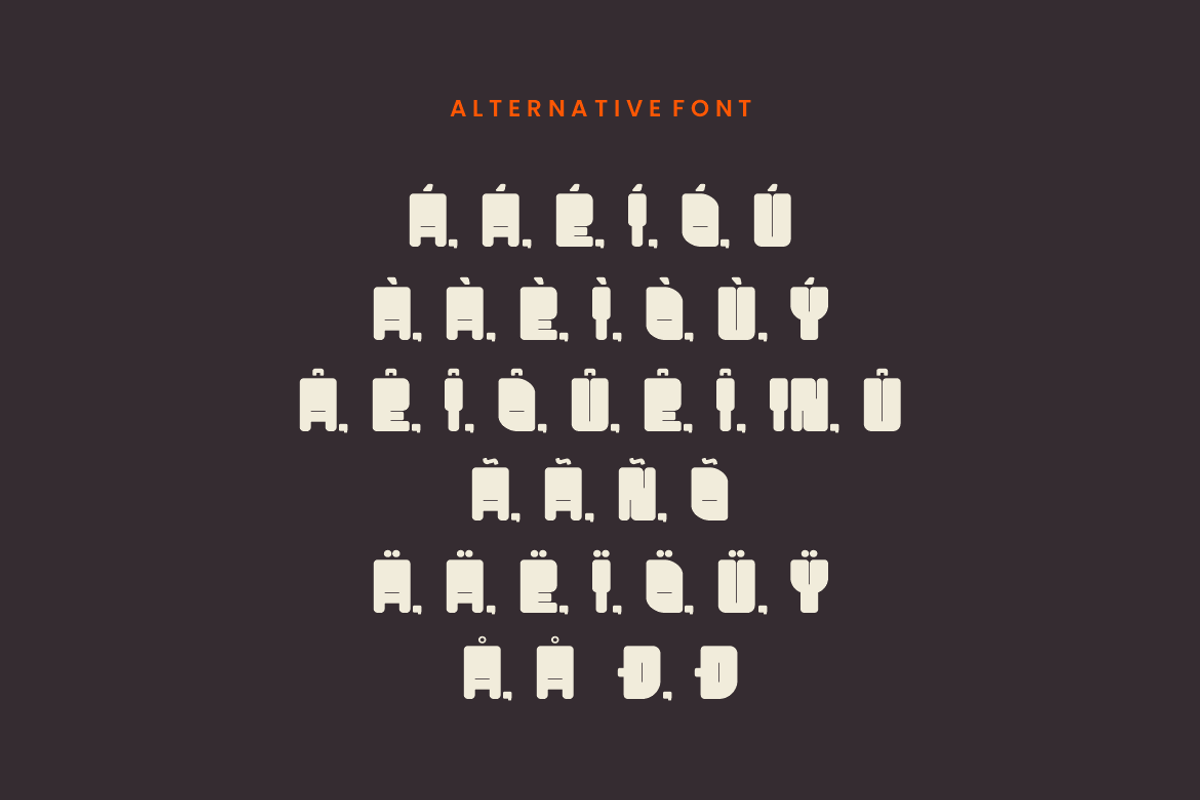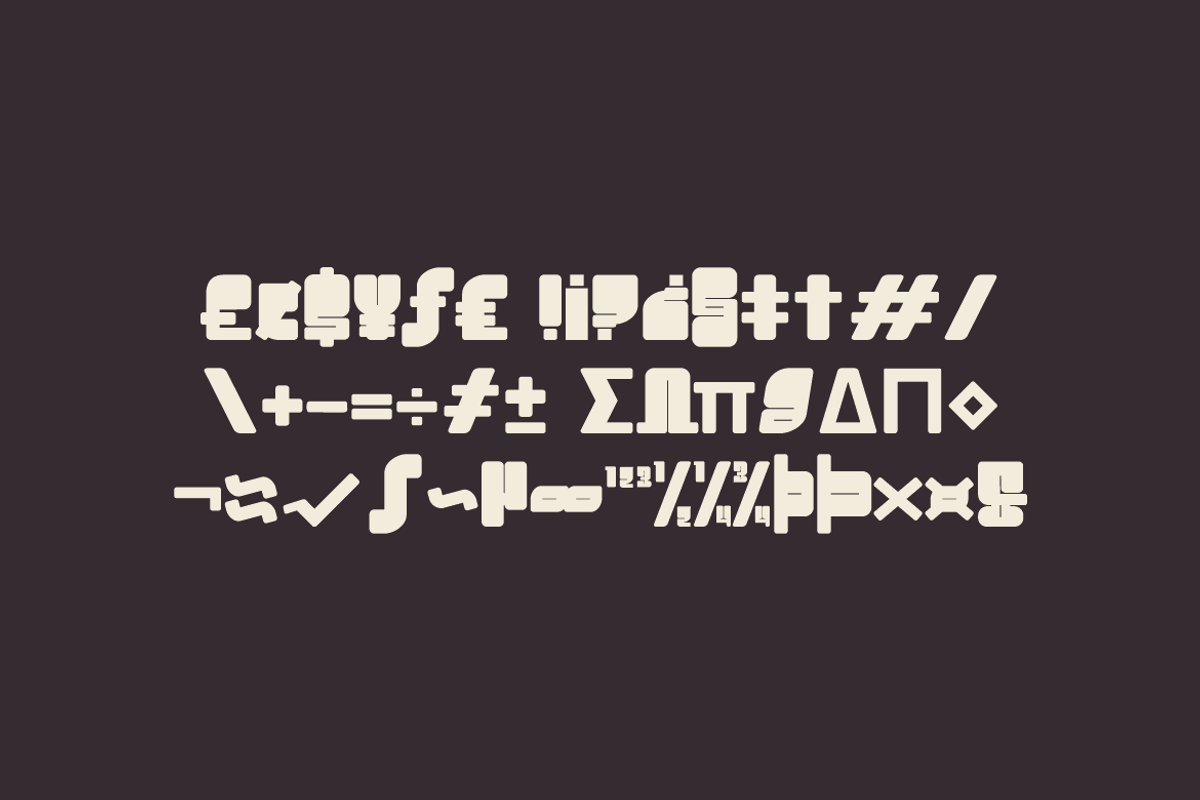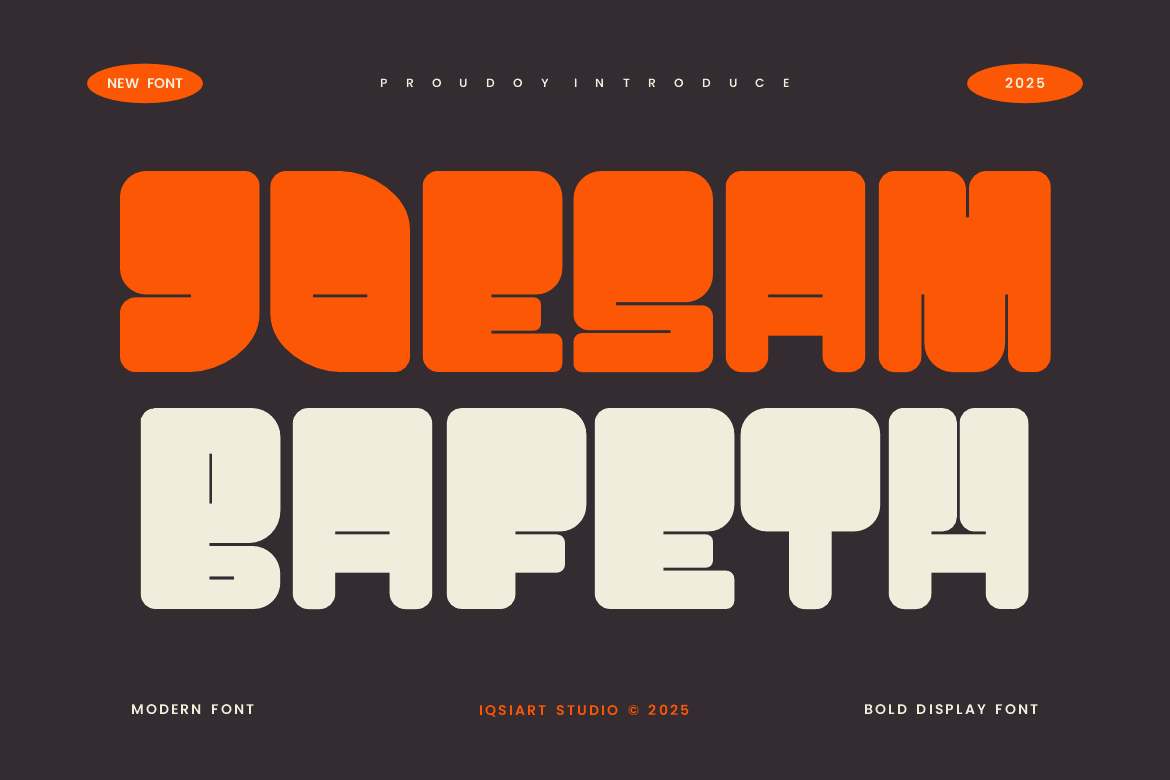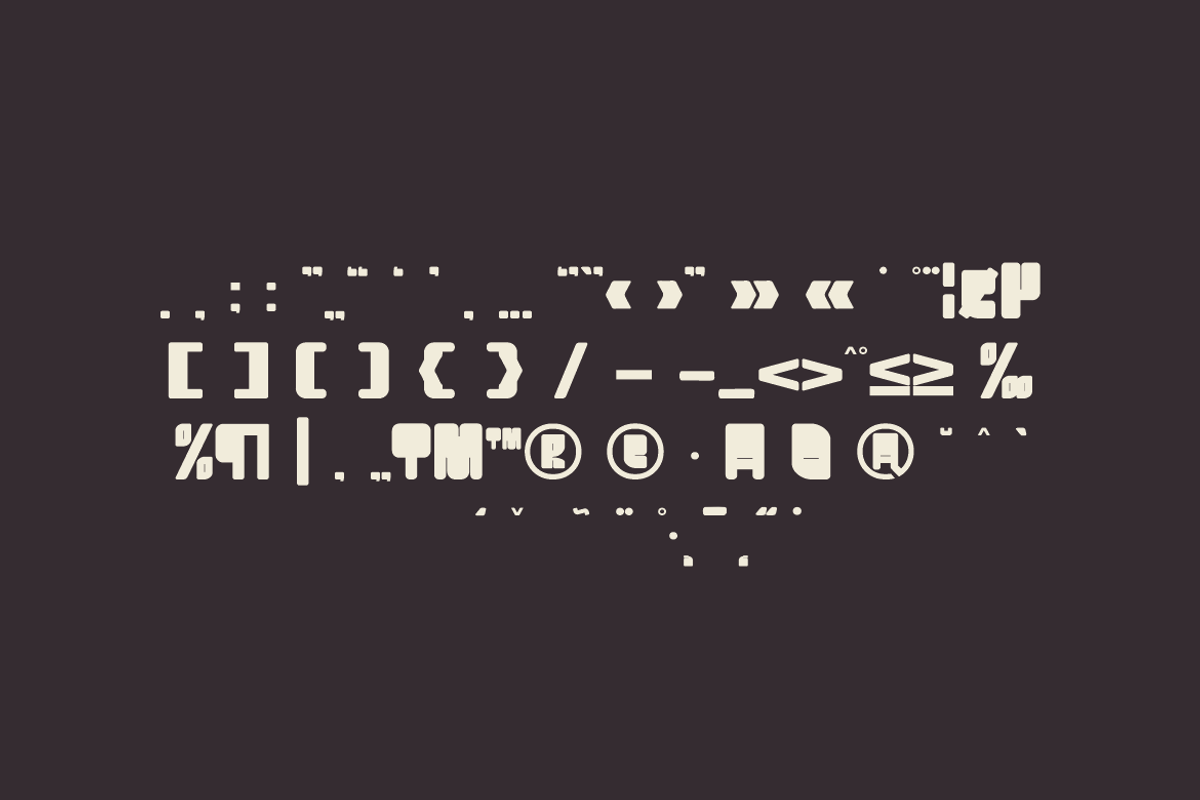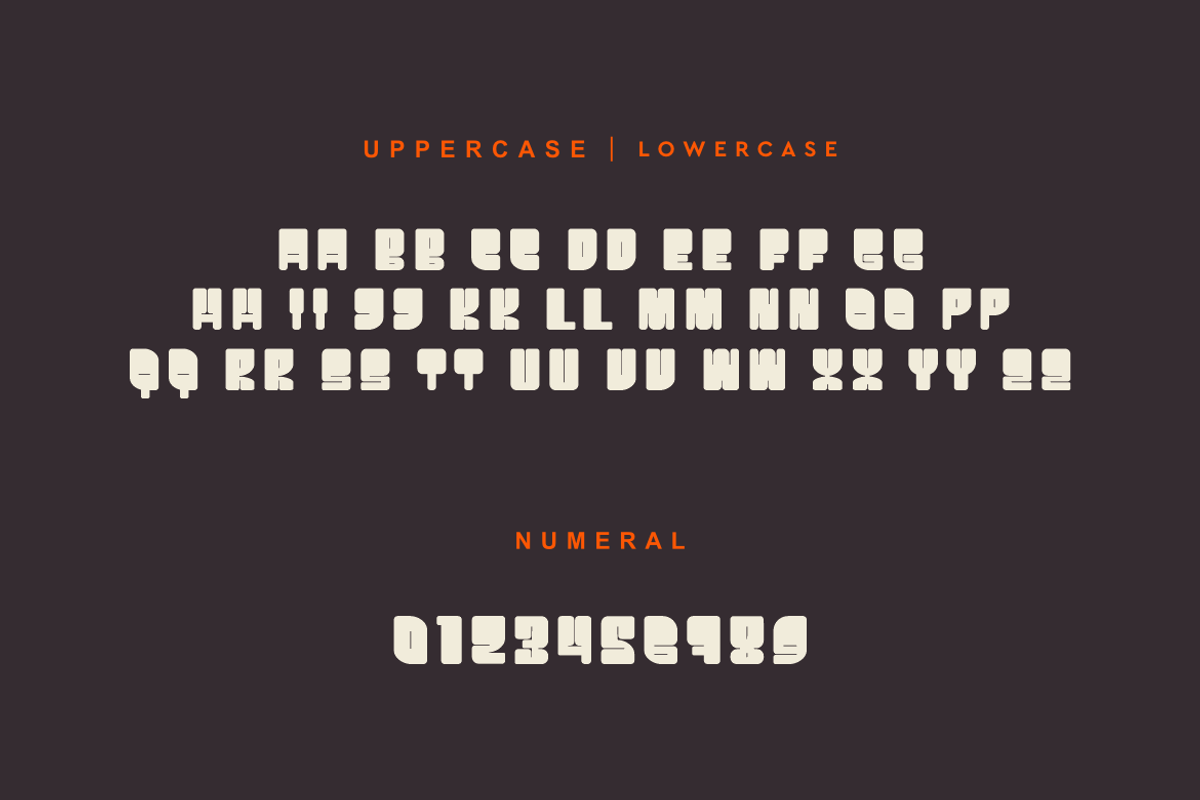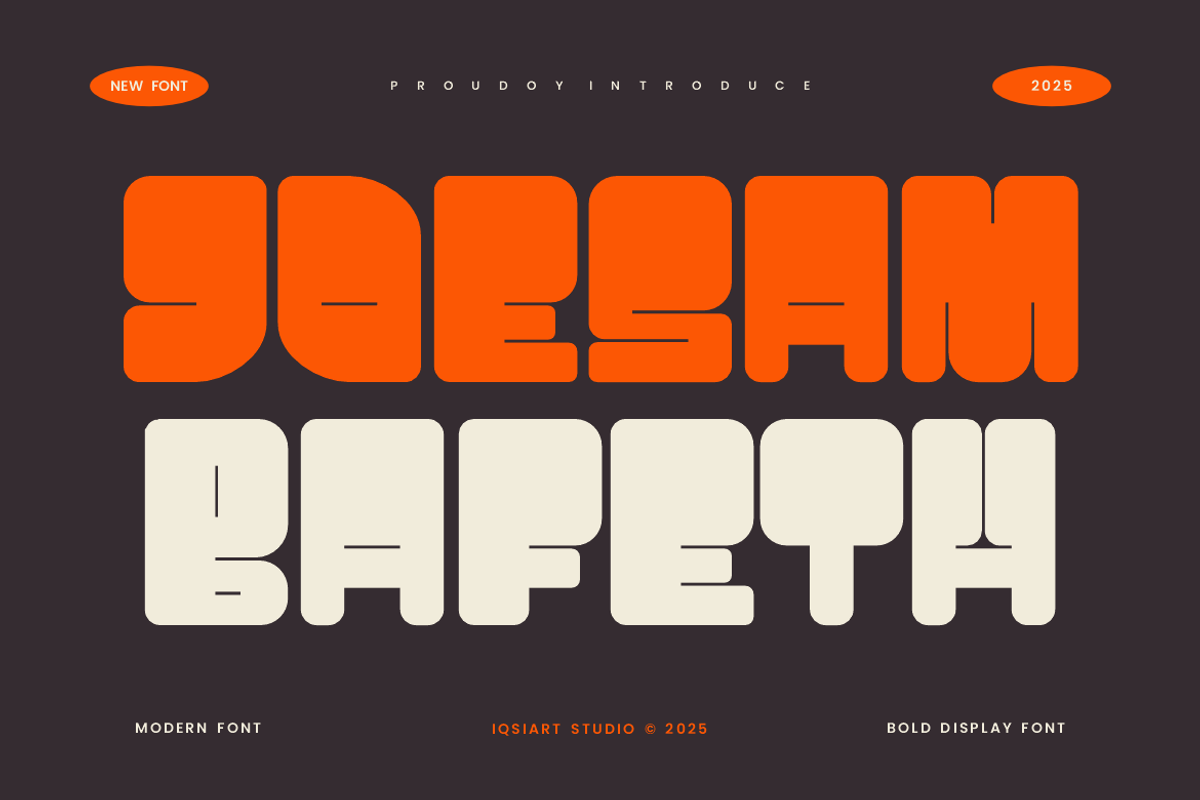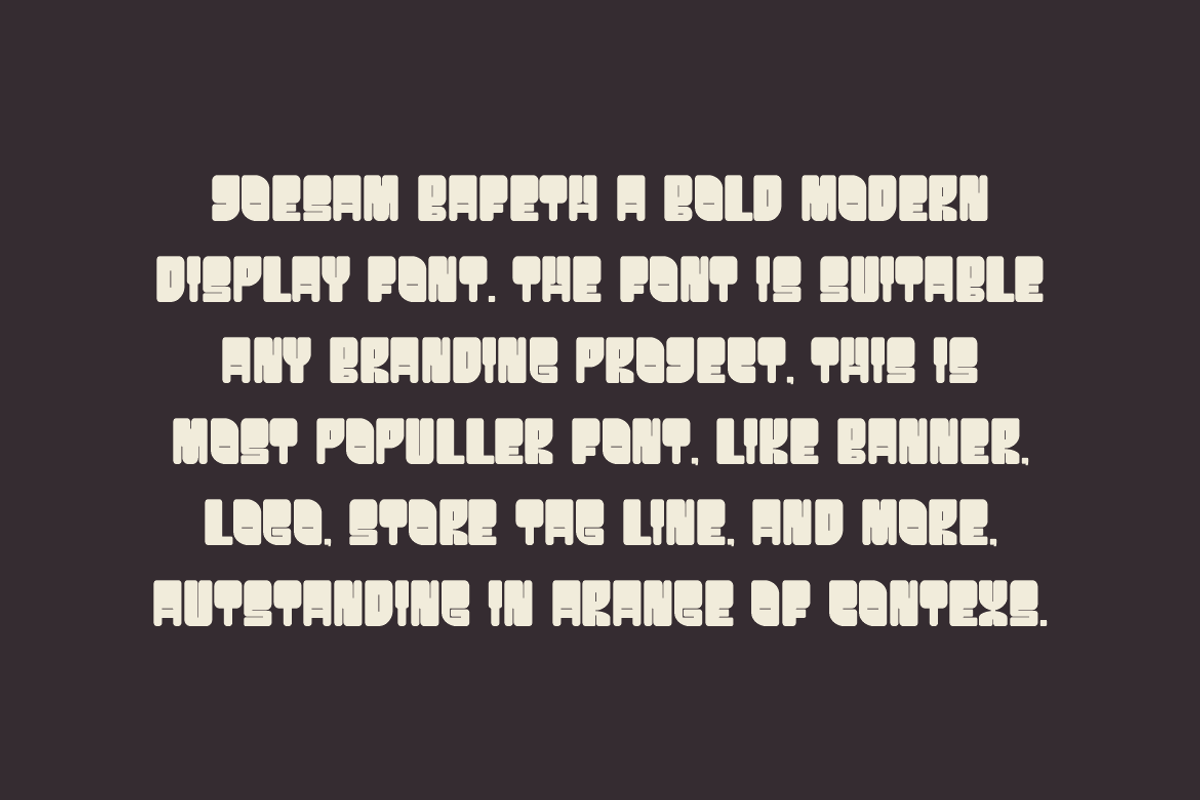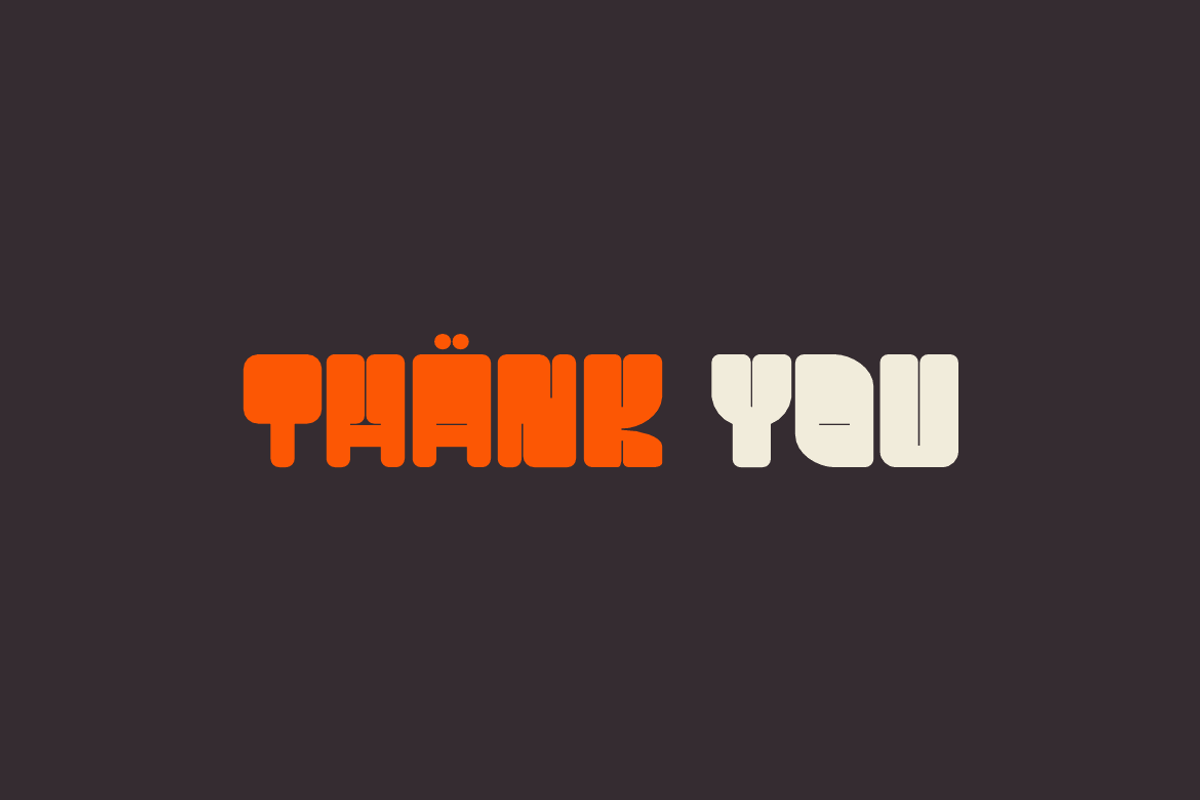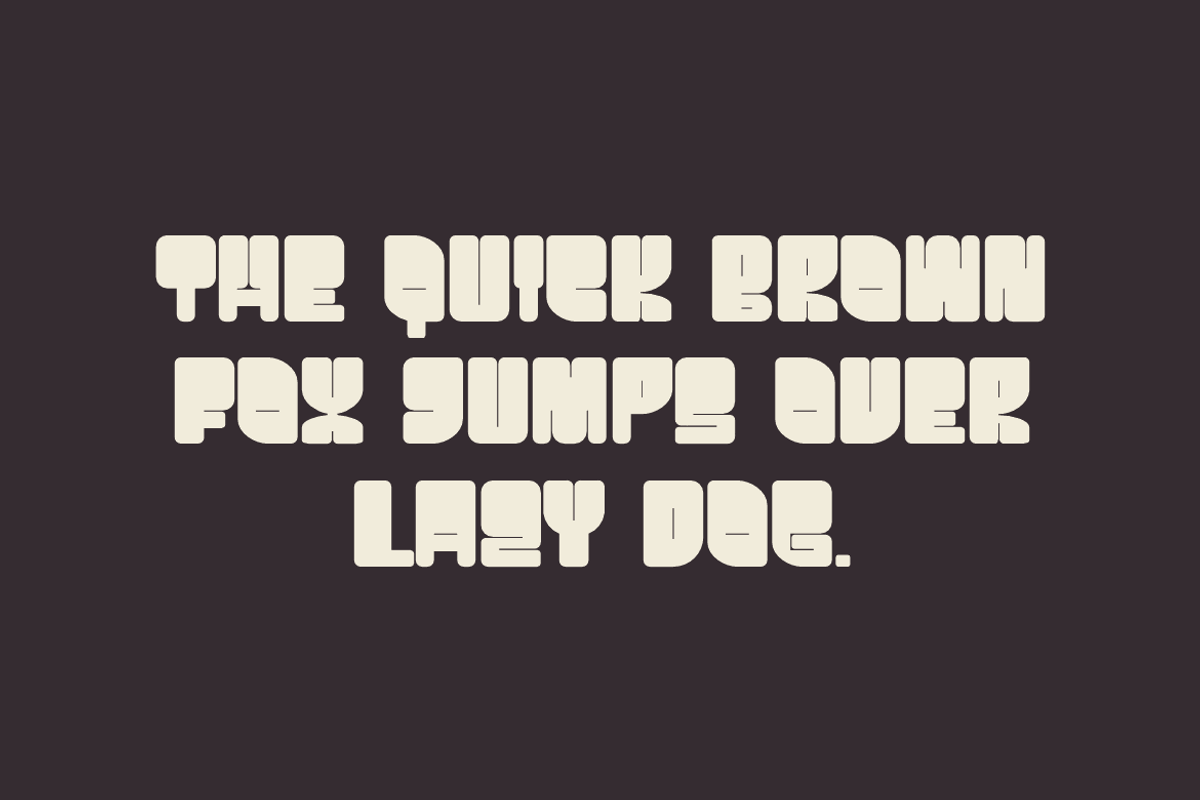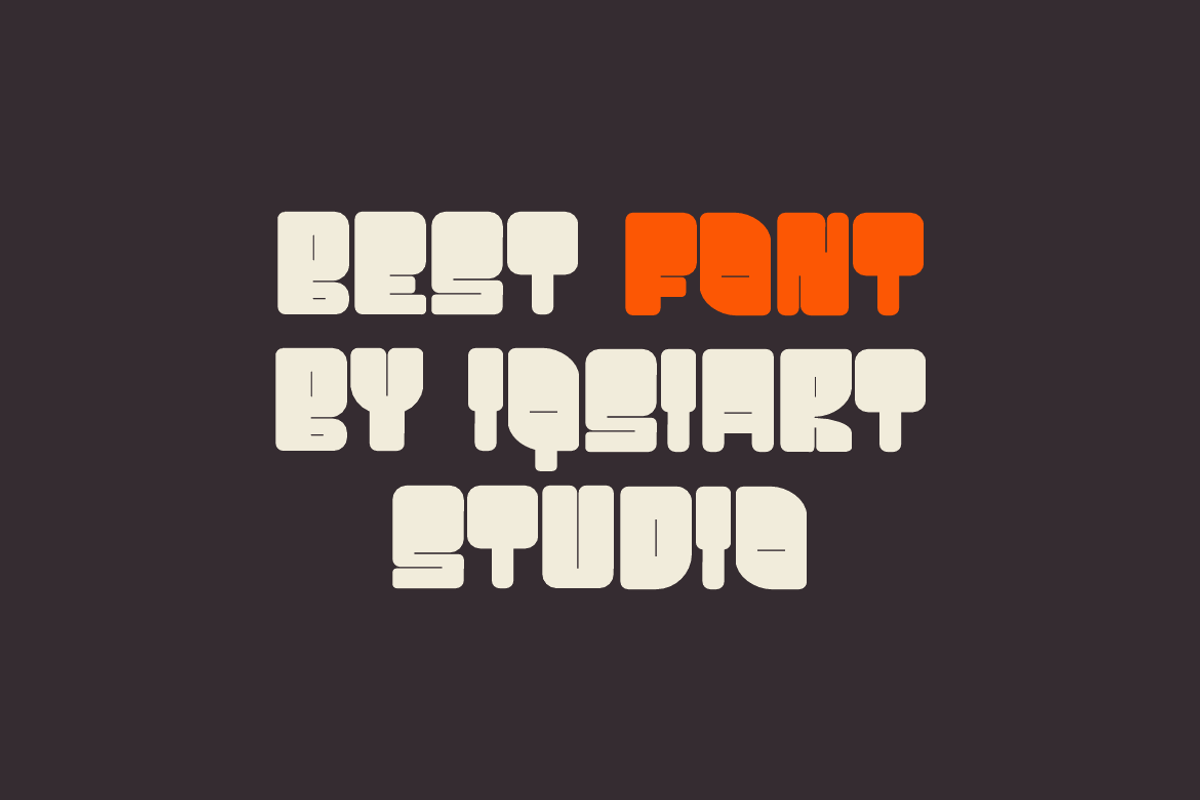
Joesam Bafeth - Thick Bold Font
Joesam Bafeth Font is a best and authentic display font. This font can be used for your various needs. We provide various themes and font styles. visit our profile to get a wide variety of themes and different font styles you need.